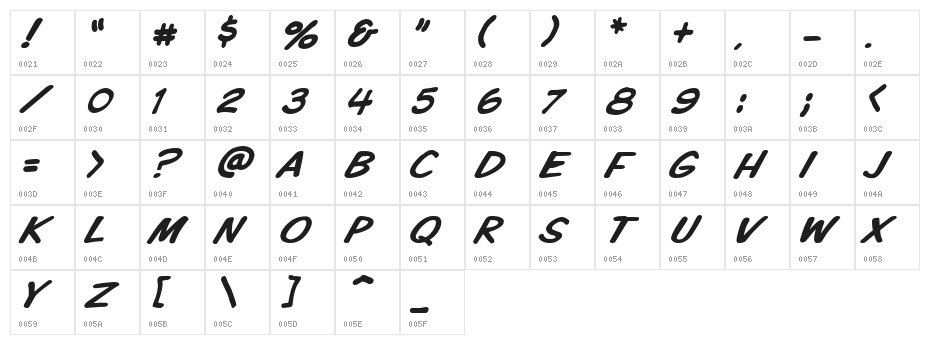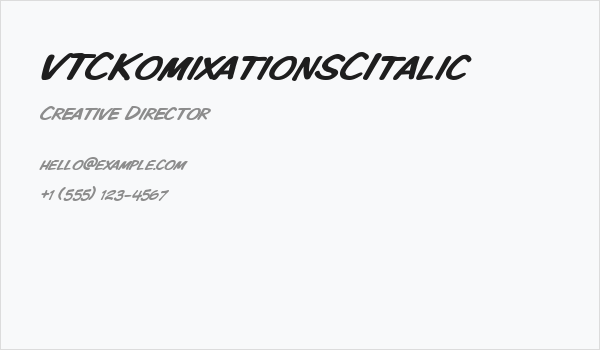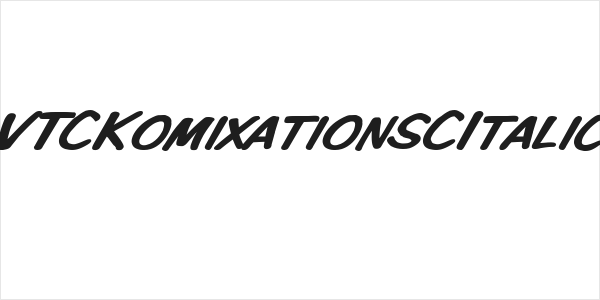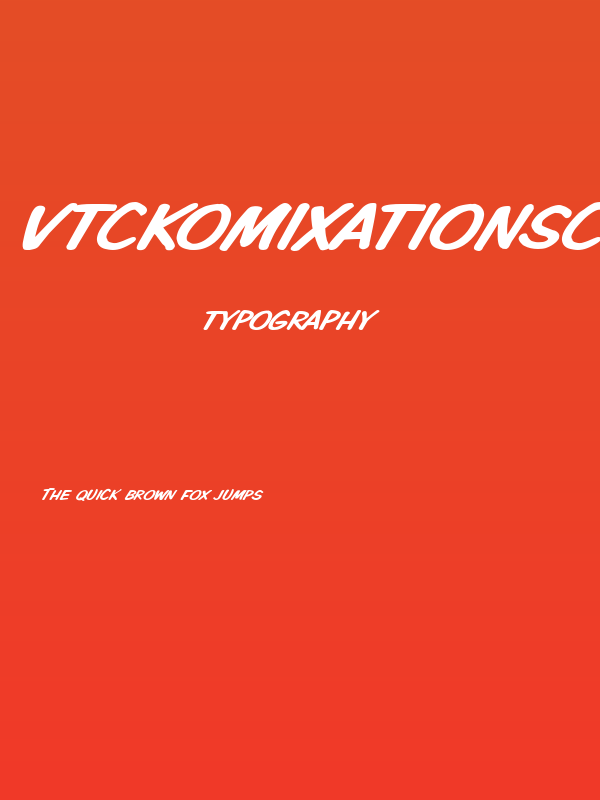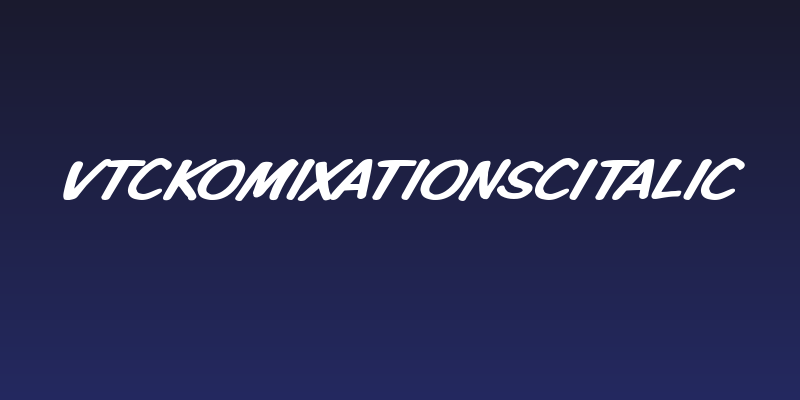
VTCKomixationSCItalic Font
VTCKomixationSCItalic Description
This font features a bold, playful style with a strong comic influence. The characters are slanted, giving it an italicized appearance, and the strokes are thick and rounded, contributing to its friendly and approachable look. The uppercase and lowercase letters maintain a consistent style, with smooth curves and a slightly exaggerated form that enhances its whimsical nature. The numbers and special characters follow the same design principles, ensuring a cohesive look across all elements. This font is ideal for projects that require a fun and energetic vibe.
| Overall Style | Playful, Comic |
| Proposed Projects | Perfect for comic books, children's books, playful branding, and casual posters. |